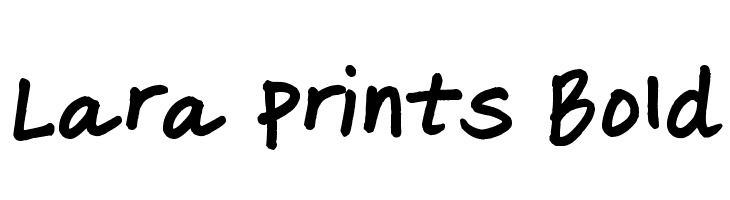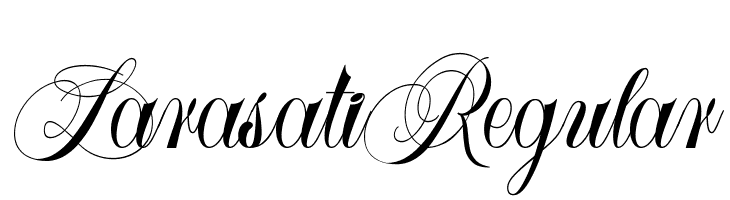
A bold, handwritten font with a playful and casual style.
A casual, handwritten font with a smooth, flowing style and moderate stroke thickness.
A modern, geometric typeface with a monospaced, technical look.
A geometric, monospaced font with a modern and technical design.
A fluid and elegant script font with a handwritten style.
A bold, geometric font with strong, modern letterforms.
A modern, geometric font with thin strokes and a minimalist style.
An elegant script font with intricate, flowing letterforms and ornate flourishes.